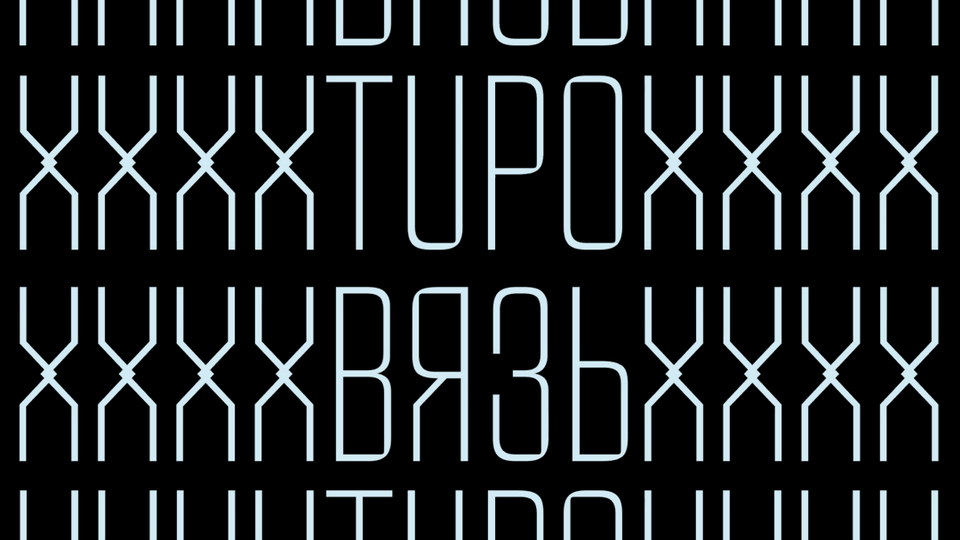
Tupo Vyaz Typeface
Tupo Vyaz is a modular closed sans serif font with very simple design and some elements from the northern variant of Vyaz slavonic calligraphic hand. The font was designed for headline setting on the website of Modern Cyrillic 2019 type design competition.
This version is a variable font with Weight axis, it’s uniwidth which makes it very handy for dynamic weight changing in headlines or menus.
The typeface was designed by Alexandra Korolkova in 2019 an released by Paratype in 2020.